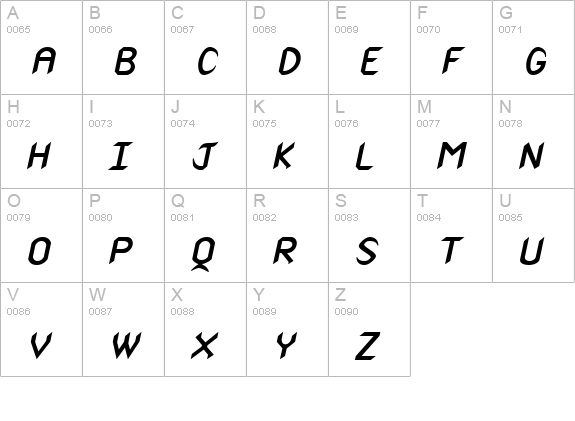
Spike-Condensed Bold Italic Font Details
Spike-Condensed Bold Italic is a strong, high-contrast, condensed-width, italic variant in the Spike typeface family \xE2\x80\x94 well suited to headlines, attention-grabbing titles, and strong calls-to-action.
Spike-Condensed Bold Italic font is a striking and dynamic typeface that exudes a sense of energy and power. Its condensed design adds a sleek and modern touch, while the bold and italic styles give it a touch of sophistication and flair. With its sharp and angular letterforms, Spike-Condensed Bold Italic font is perfect for making a bold statement in headlines, titles, and branding materials. It commands attention and demands to be noticed. Whether you're designing a magazine layout, creating a logo, or crafting a poster, this font will add a touch of boldness and creativity to your work. The versatility of Spike-Condensed Bold Italic font allows it to be used across a wide range of design projects. It is equally at home in edgy and contemporary designs as it is in more traditional and classic layouts. Its distinctive style makes it a standout choice for bold and impactful typography. And the best part? Spike-Condensed Bold Italic font is available for free! You can easily download it at FontsMarket.com, where you'll find a vast collection of high-quality fonts. This means that you can add this stunning typeface to your font library without spending a penny, making it an excellent choice for designers on a budget. In conclusion, Spike-Condensed Bold Italic font is a visually striking and versatile typeface that will elevate your designs to new heights. Its bold and italic styles, combined with its condensed design, make it a standout choice for projects that require a touch of power and sophistication. And with its free availability at FontsMarket.com, there's no reason not to add this font to your collection today.